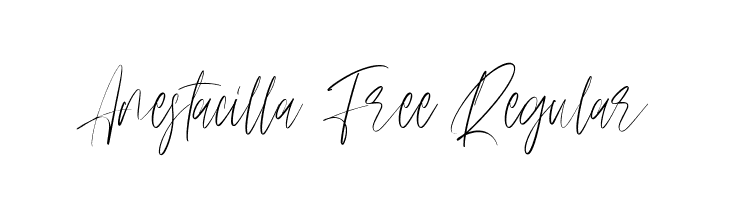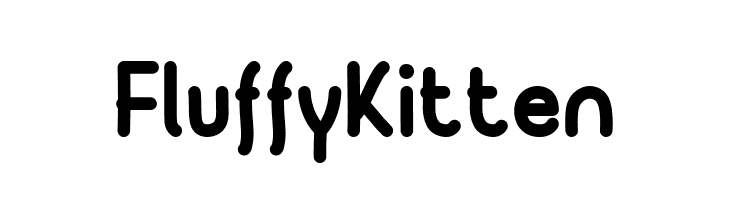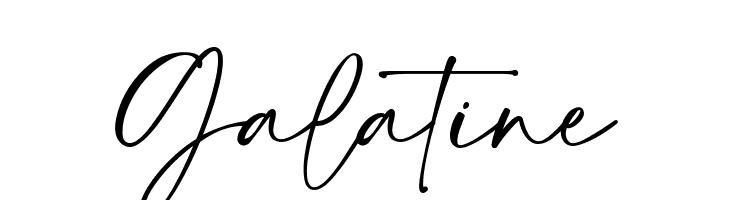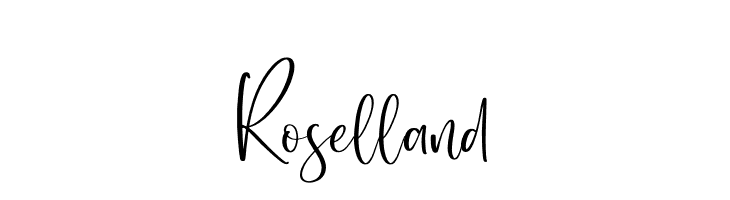
( Fonts by Letterena Studios )
A playful, modern handwritten font with medium contrast and dynamic slant.
( Fonts by DN Creative )
A delicate and elegant script font with thin, flowing lines and graceful curves.
( Fonts by QueenType )
A playful, handwritten font with flowing, interconnected strokes.
( Fonts by Inermedia Studio )
A lively and playful script font with elegant, flowing cursive letters.
( Fonts by Hanna Bie )
A playful, rounded font with a whimsical and friendly style.
( Fonts by Ilen Nalishawa )
A playful handwritten font with smooth curves and a casual style.
A playful, cursive handwritten font with fluid, continuous strokes.
A playful, handwritten font with smooth, flowing curves and a casual style.
( Fonts by Storytype Studio )
An elegant, flowing script font with thin, graceful strokes.